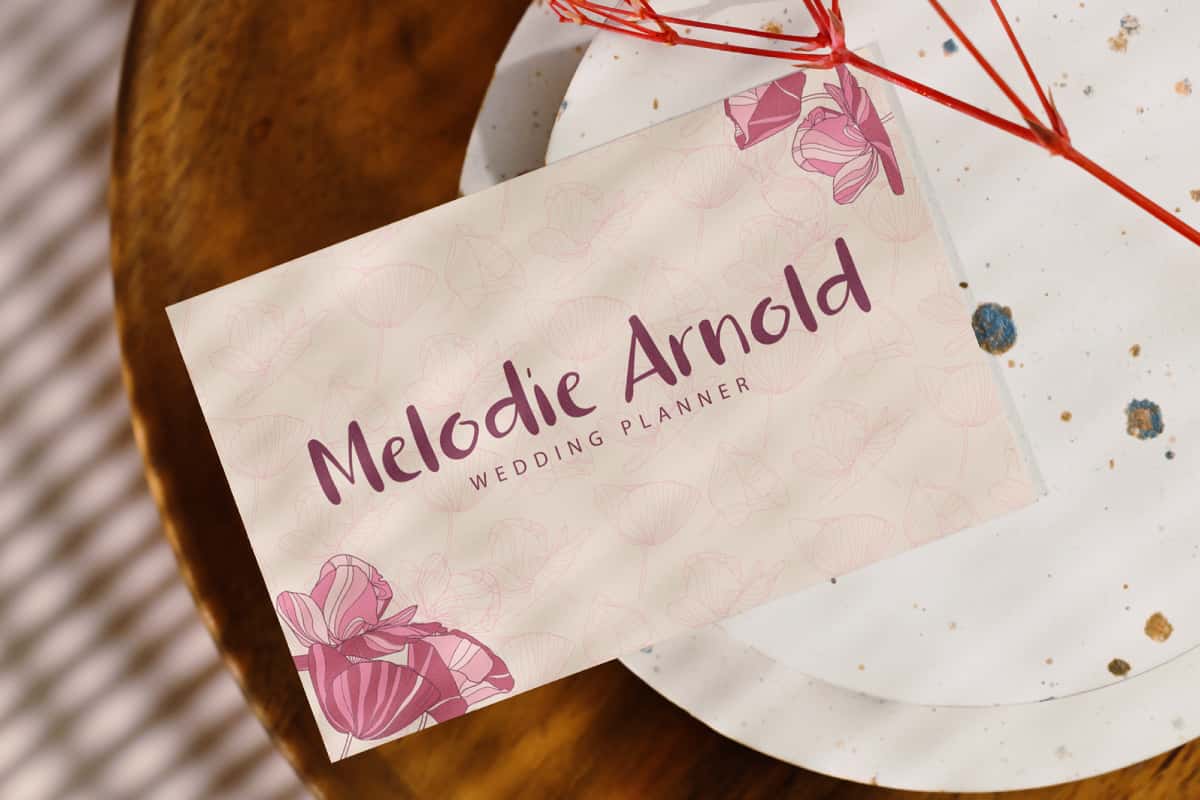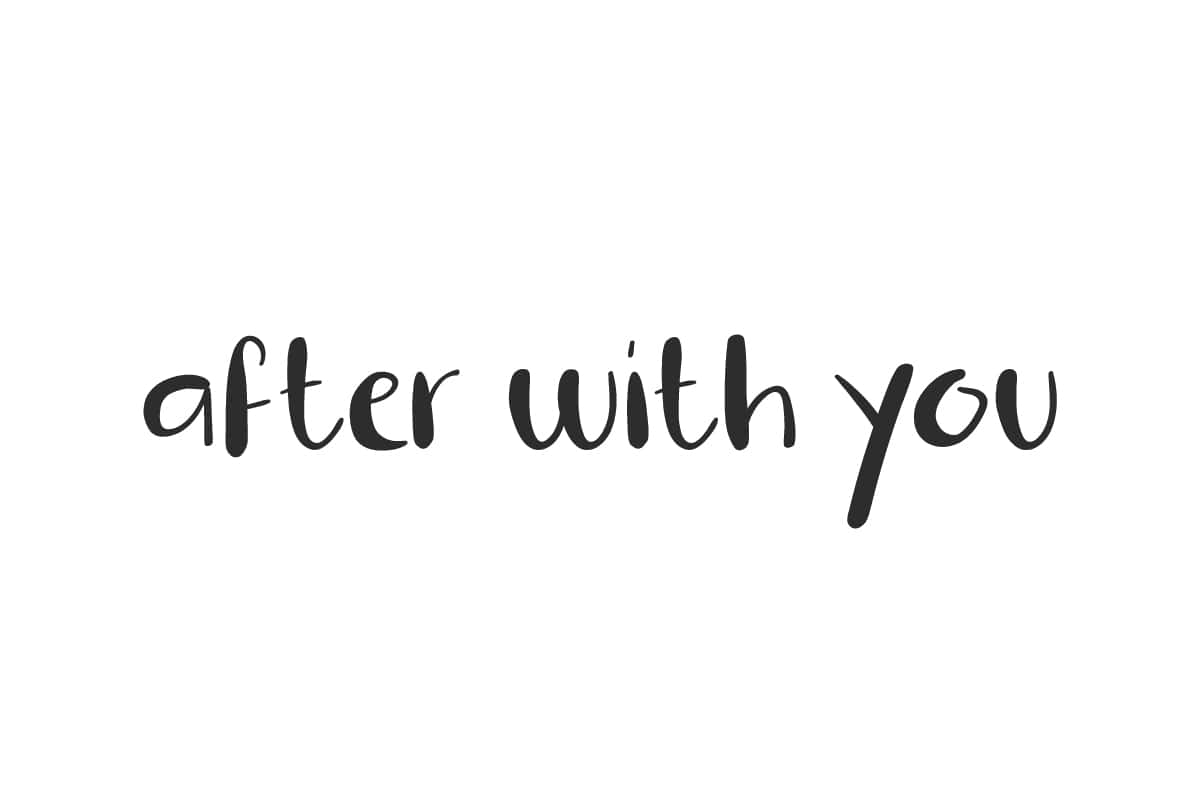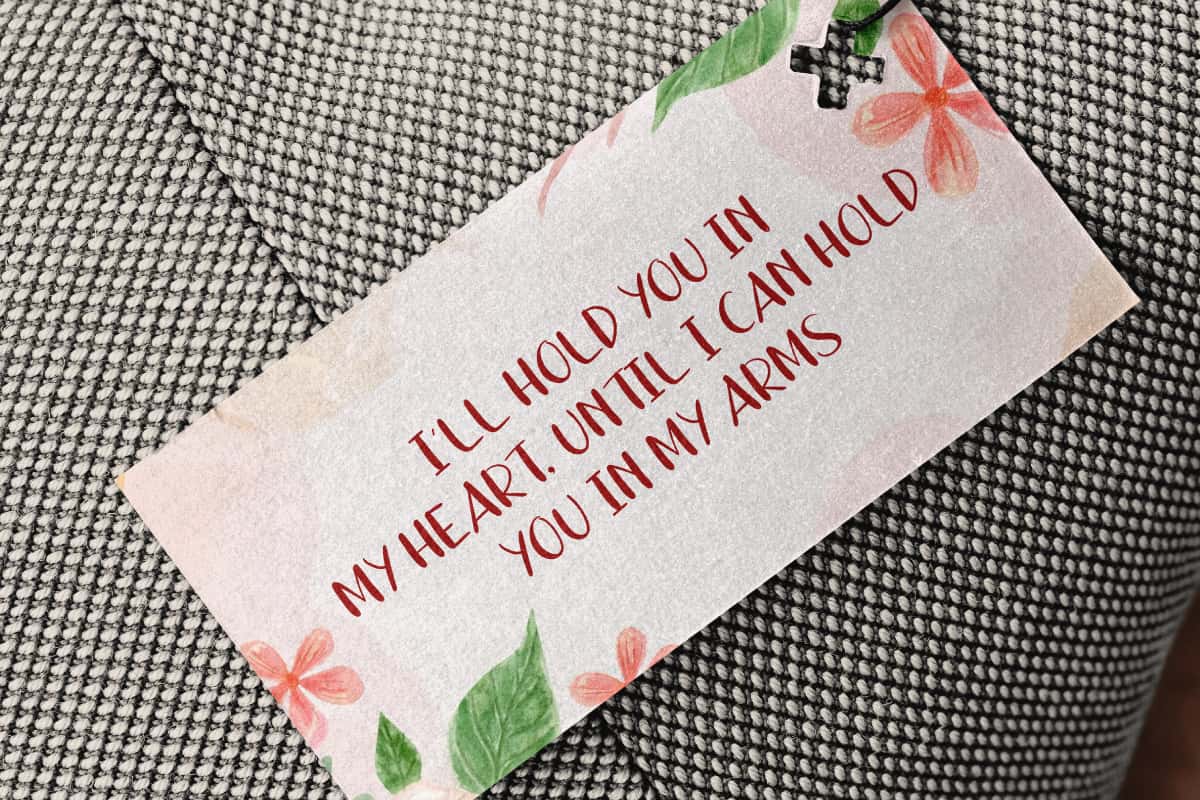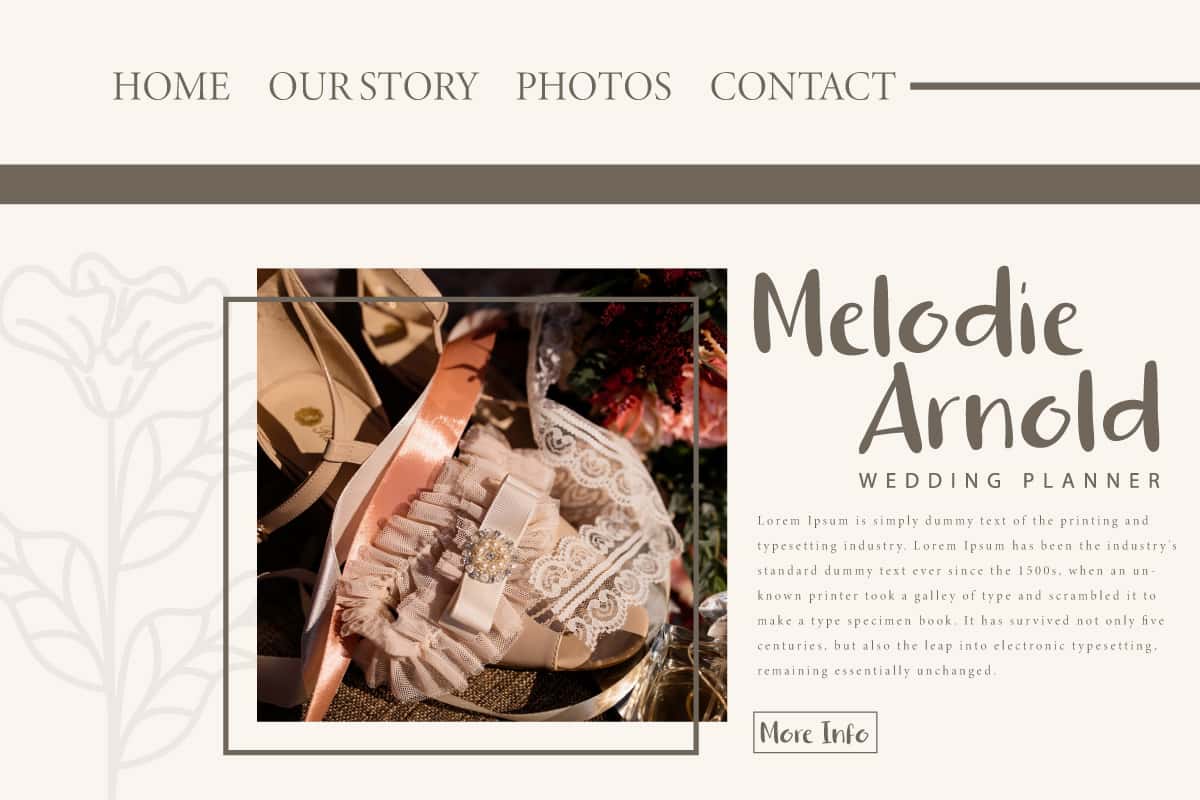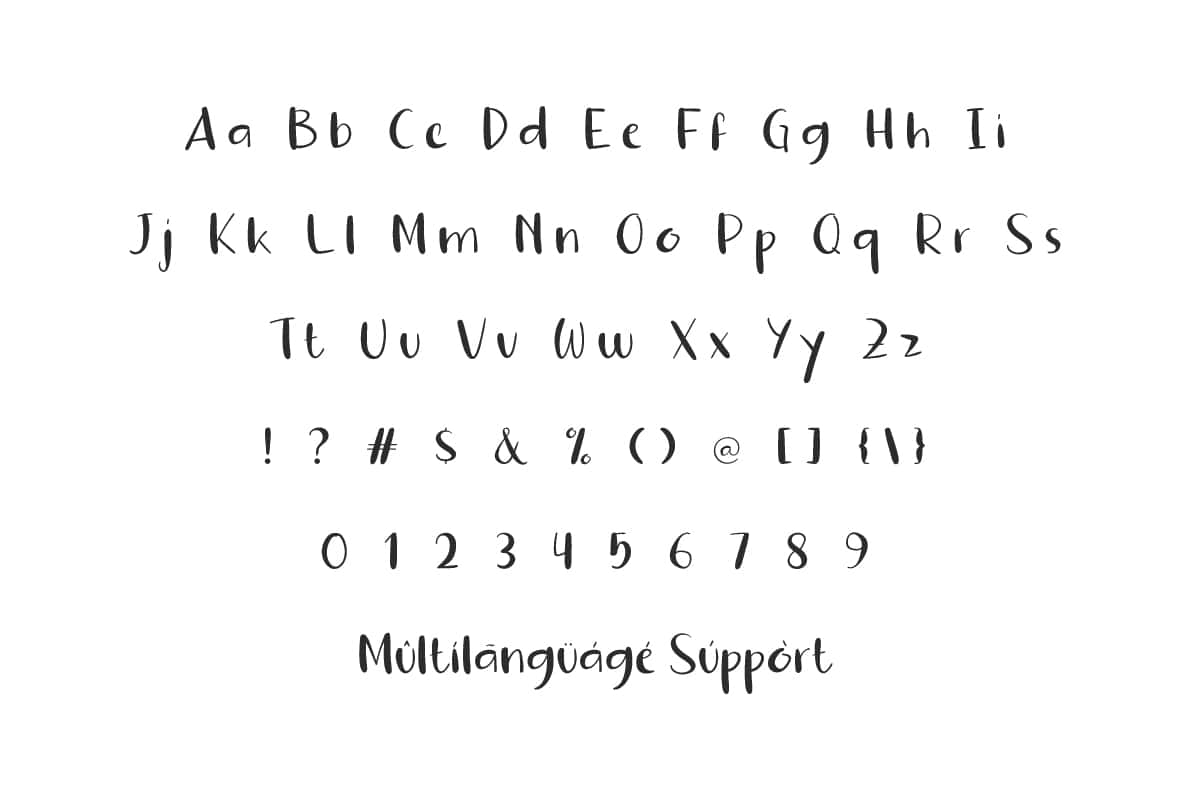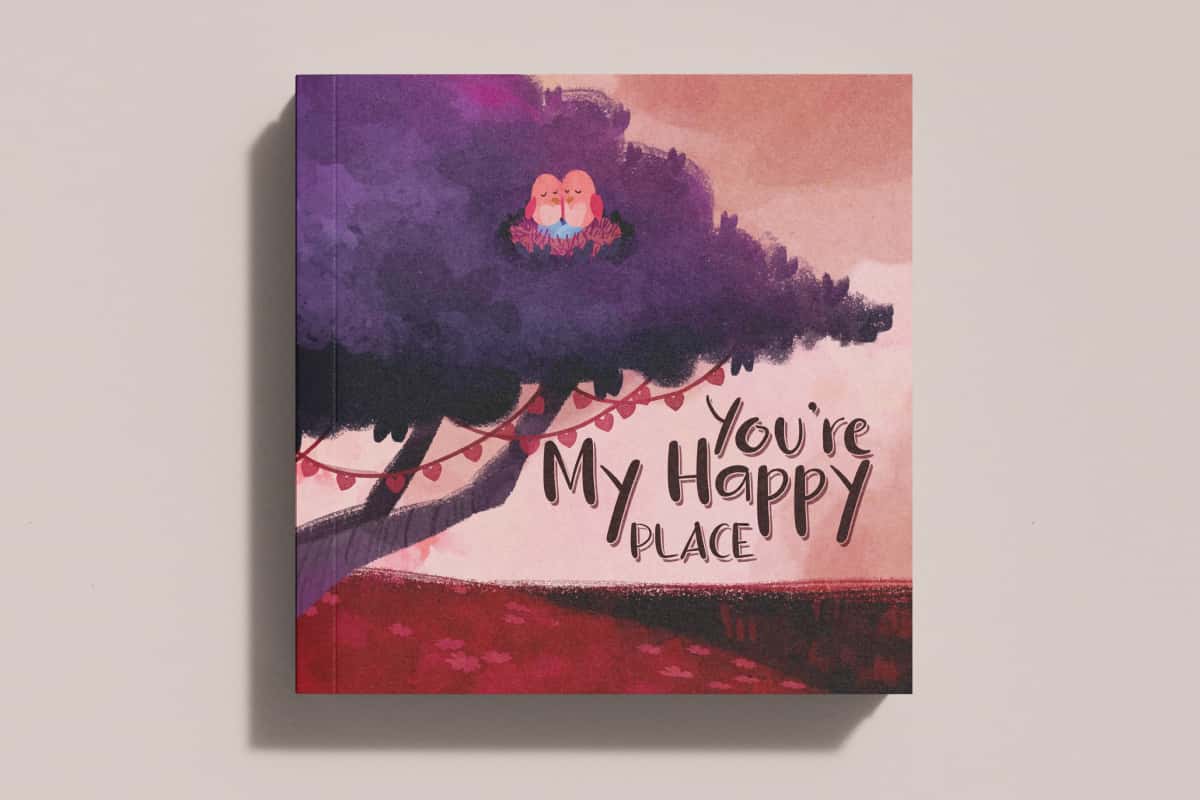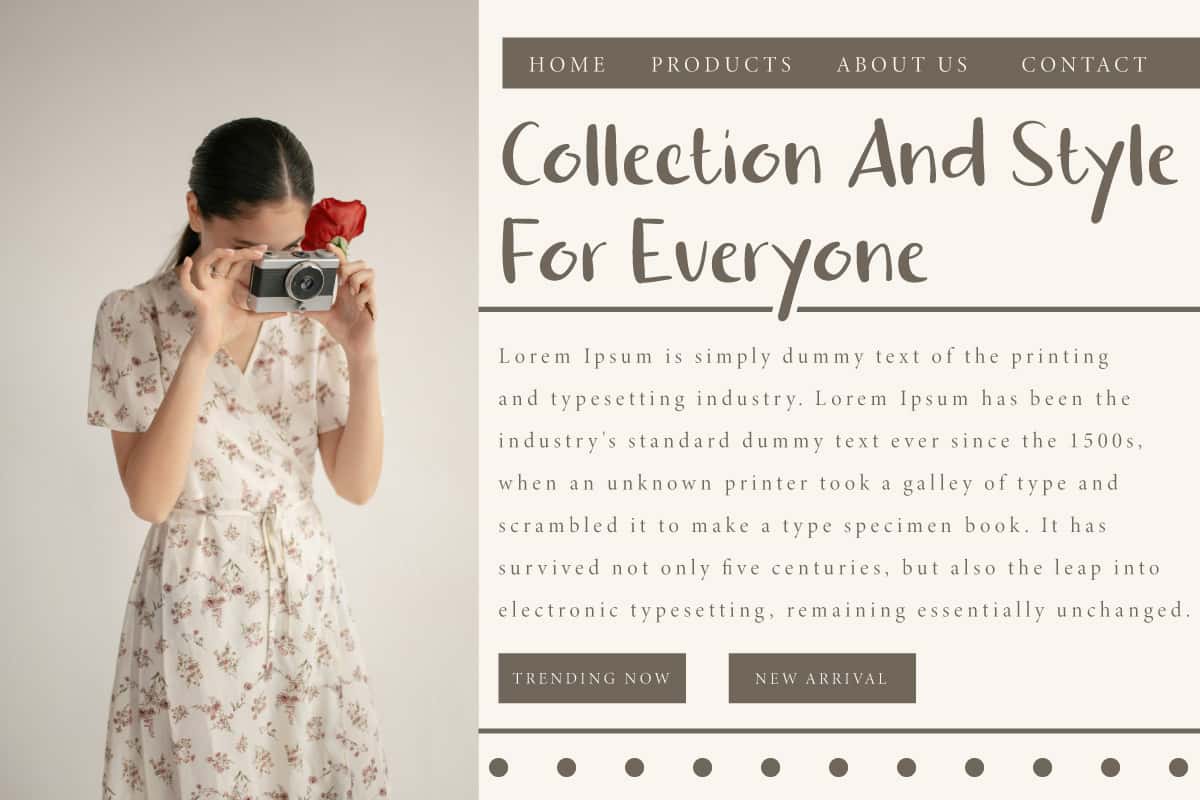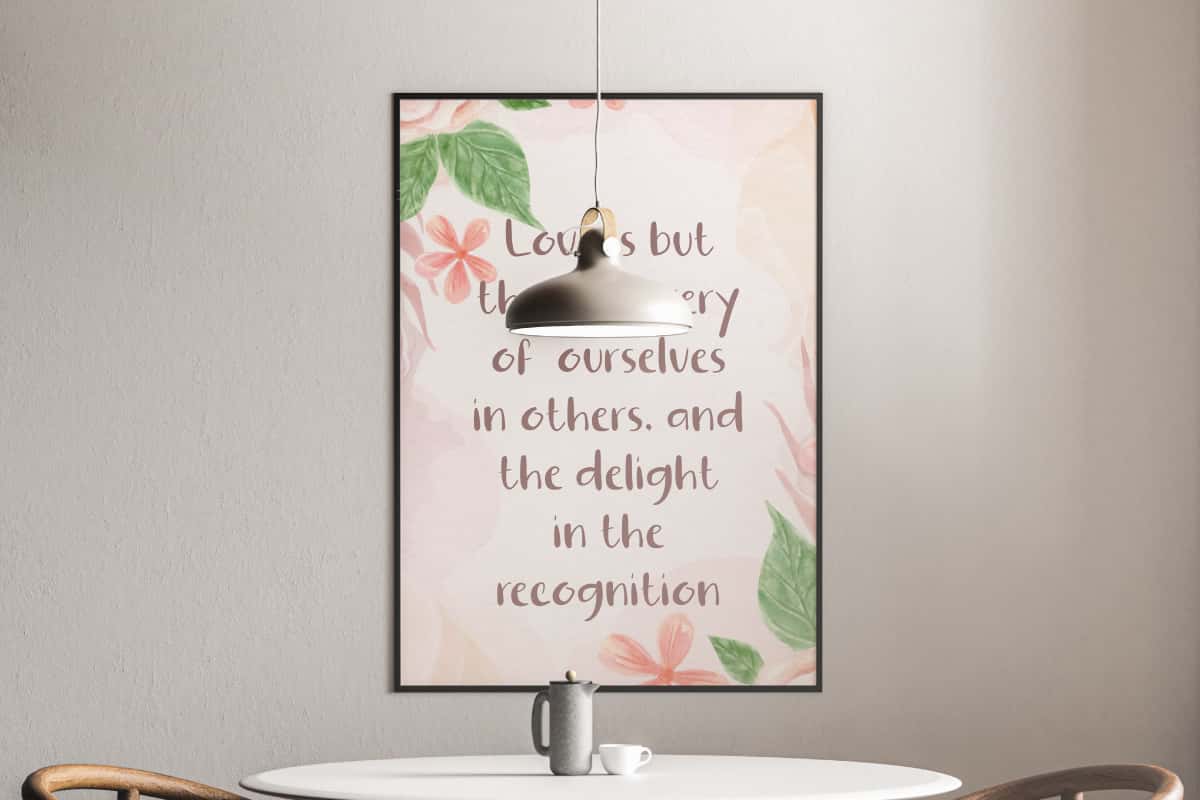
After With You Font is a lovely and playful handwriting with a fun and trendy touch! It will give a fresh and friendly impression!
After With You Font is a lovely and playful casual handwriting with a balanced marker thickness. Free to create so as to create a more customized look. It’s works so well for banners, greeting card, headers, logo, mockup, packaging, quotes, social media post, stationery, title, template, website, and many more.
After With You Font includes a complete set of Basic Uppercase and Lowercase Characters, Numbers, Punctuation and Symbols. Add a touch of personality and charm to your designs with this typeface. Perfect for everything from personal to professional designs, such as author, cafe, clothing brand, fashion, graphic design, handicraft, home furniture, photography, publisher, restaurant, wedding organizer, writer, and more.